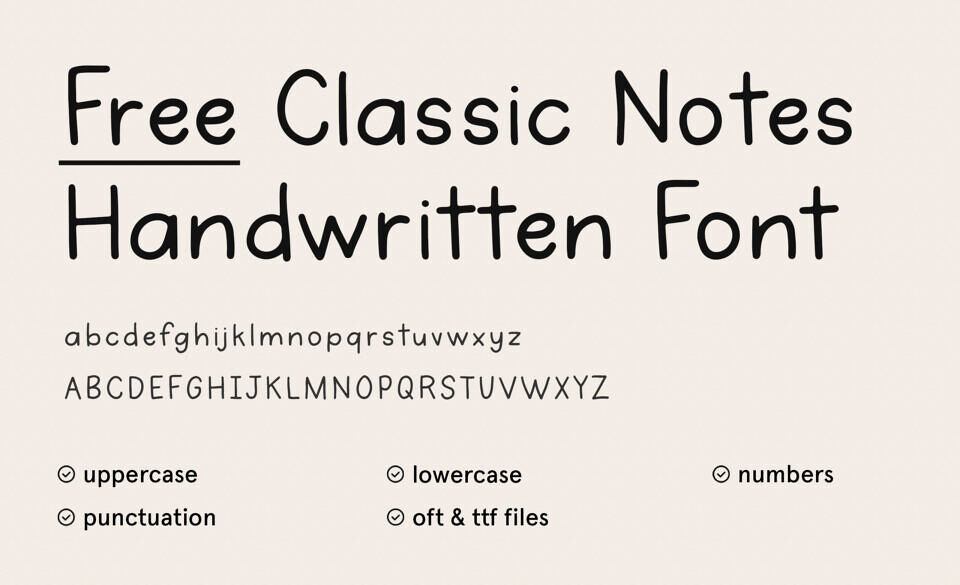
Beautify your notes with a handwritten student inspired font. Perfect for digital planning, study notes or general usage. OTF & TTF fonts included. Import to your computer, tablet, iPad, etc.
The Free Version of the font offers uppercase and lowercase letters, numbers, and punctuation, suitable for basic English-based designs.